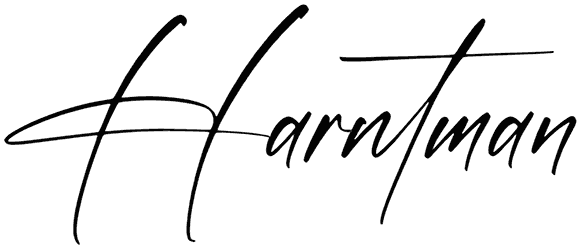
Harntman Font
Don’t even think about skipping a marvelous script font such as the Harntman that comes with angular and crooked letters. This handwritten font would be your best chance for designing captivating graphic content, including business cards, magazines, applications, the user interface of web pages, and digital banners.
It is an undeniable fact that can bring a feeling of personalization, tenderness, momentum, or vitality to all of your projects and make them look much more appealing.